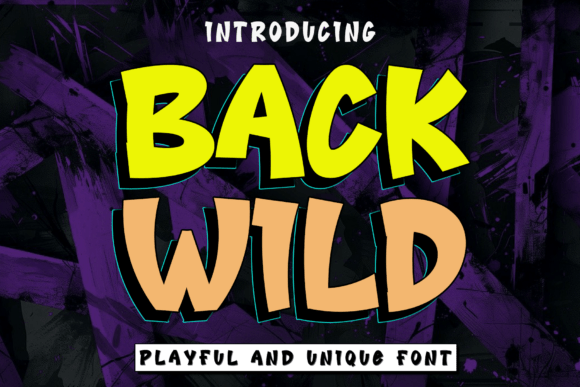
Introducing Back Wild Font: The Ultimate Choice for Fun and Relaxation
Are you looking for a font that can add a touch of fun and relaxation to your creative projects? Look no further than Back Wild Font. This neat and casual display font is perfect for summer posters, event flyers, and playful branding. With its clean lines and easygoing vibe, Back Wild Font is sure to bring a breezy, laid-back feel to any project or message.
What is Back Wild Font?
Back Wild Font is a display font designed to evoke a sense of fun and relaxation. Its clean lines and casual style make it perfect for a variety of creative projects, from summer posters to playful branding. The font’s easygoing vibe is sure to appeal to anyone looking to add a touch of laid-back charm to their work.
Key Features of Back Wild Font
- Clean Lines: Back Wild Font features clean lines that give it a crisp, modern look.
- Easygoing Vibe: The font’s casual style and relaxed vibe make it perfect for projects that require a laid-back feel.
- Cheerful: Back Wild Font is a cheerful typeface that’s sure to bring a smile to anyone’s face.
- Versatile: The font is versatile and can be used for a variety of creative projects, from posters to branding.
Uses for Back Wild Font
Back Wild Font is perfect for a variety of creative projects, including:
- Summer Posters: The font’s breezy, laid-back feel makes it perfect for summer posters and flyers.
- Event Flyers: Back Wild Font is great for event flyers, adding a touch of fun and relaxation to any event.
- Playful Branding: The font’s cheerful style makes it perfect for playful branding, adding a touch of whimsy to any brand.
- Social Media Graphics: Back Wild Font can be used to create engaging social media graphics that are sure to grab attention.
Benefits of Using Back Wild Font
There are many benefits to using Back Wild Font, including:
- Unique Look: The font’s unique style is sure to make your project stand out.
- Easy to Read: Back Wild Font is easy to read, even at small sizes.
- Versatile: The font can be used for a variety of creative projects.
- Fun and Relaxed: Back Wild Font adds a touch of fun and relaxation to any project.
How to Use Back Wild Font
Using Back Wild Font is easy. Here are a few tips to get you started:
- Choose the Right Size: Choose a size that’s easy to read, but also stands out.
- Pair with Other Fonts: Pair Back Wild Font with other fonts to create a unique look.
- Experiment with Colors: Experiment with different colors to find the perfect combination.
- Have Fun: Don’t be afraid to get creative and have fun with the font.
Back Wild Font is a great choice for anyone looking to add a touch of fun and relaxation to their creative projects. With its clean lines, easygoing vibe, and cheerful style, it’s perfect for summer posters, event flyers, and playful branding. Whether you’re a designer, artist, or just someone looking to add some personality to your work, Back Wild Font is sure to deliver.
- What is Back Wild Font? Back Wild Font is a display font designed to evoke a sense of fun and relaxation.
- What is Back Wild Font used for? Back Wild Font is perfect for summer posters, event flyers, playful branding, and social media graphics.
- Is Back Wild Font easy to read? Yes, Back Wild Font is easy to read, even at small sizes.